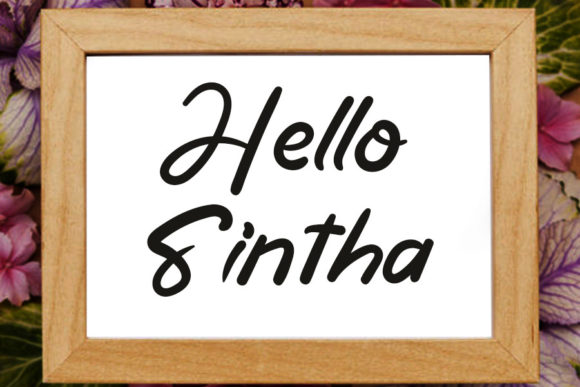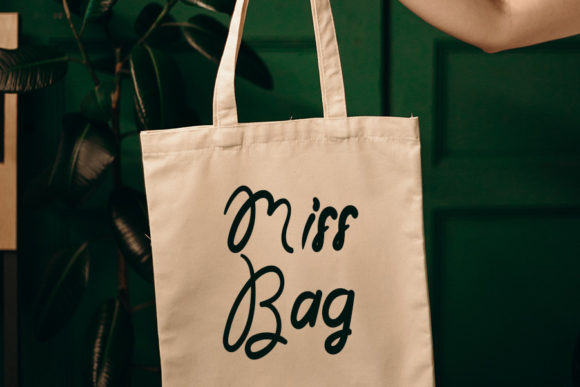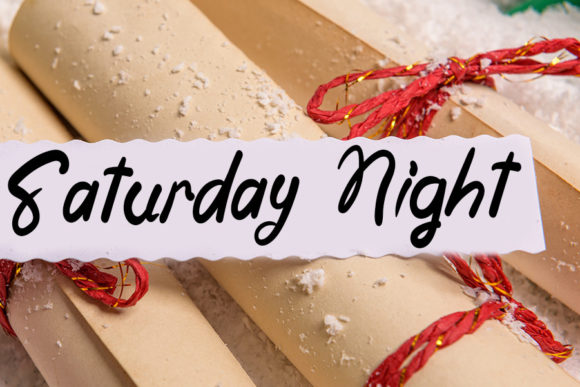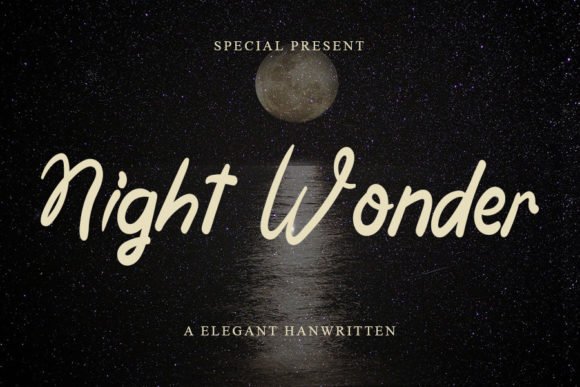
Introduction to Night Wonder Font
Night Wonder is a dainty and flowing handwritten font.
Sweet and joyful, this font will be ideal for writing wedding invitations, cards or any other design that may need a romantic, personalized touch .
Key Features of Night Wonder Font
Why Choose Night Wonder Font?